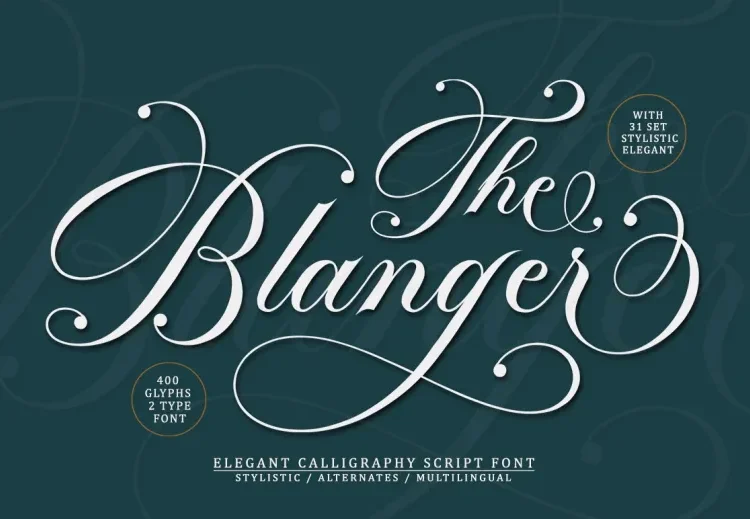
The Blanger Font
The Blanger is a stunning script calligraphy font, inspired by traditional copper decorative scripts. Its modernized version features exquisite details and elegant character switches, making it a sophisticated and timeless choice. The flowing connections between letters ensure both ease of reading and a captivating, sensual aesthetic.
Perfect for formal designs, The Blanger is ideal for invitations, labels, restaurant menus, fashion logos, makeup branding, stationery, books, novels, magazines, greeting cards, packaging, and more. Its refined beauty adds a touch of elegance to any project.